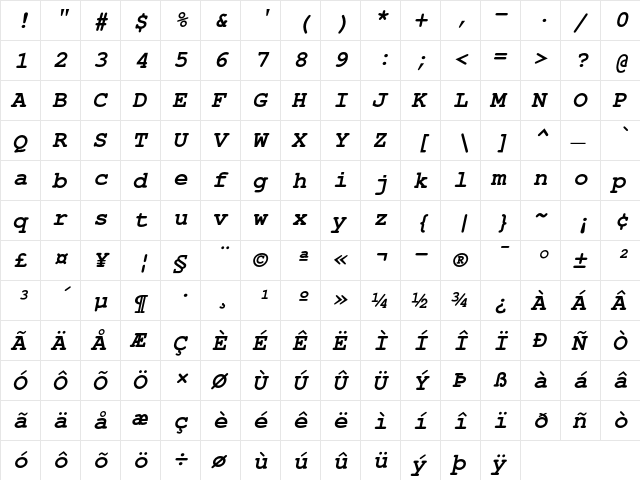
Nimbus Mono L Bold Oblique Font Preview
Design Context for Nimbus Mono L Typeface
Nimbus Mono L brings the precise, column-aligned rhythm of monospaced typography to designs that value technical clarity and systematic order. Its italic angle brings a sense of urgency and motion to the letterforms. Its bold stroke weight gives it real presence on the page.
Pro Tip: Pair Nimbus Mono L with a proportional sans for UI contexts where code-style labels and regular body copy need to coexist.